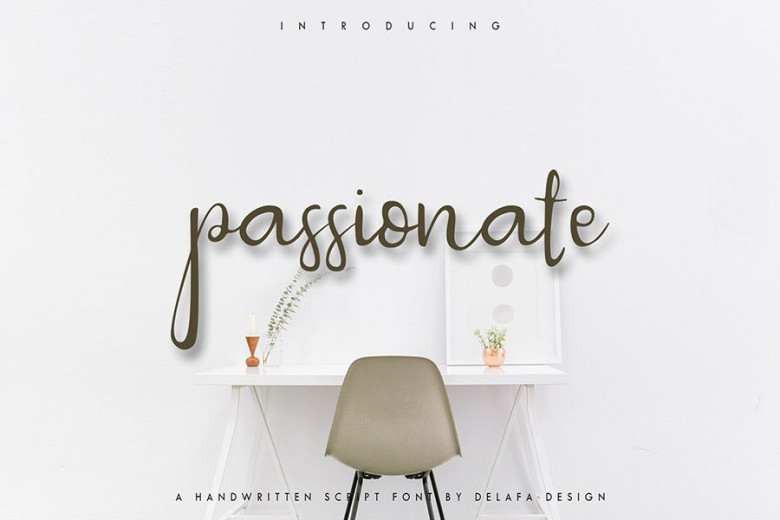
Passionate Script Font
A handwritten script font by Delafa Design. Introducing Passionate Font. Passionate! Stylish and fashionable handwritten script fonts. Passionate is perfect for branding, magazines, social media, advertisements, event invites, or any business that wants to appear stylish and chic.